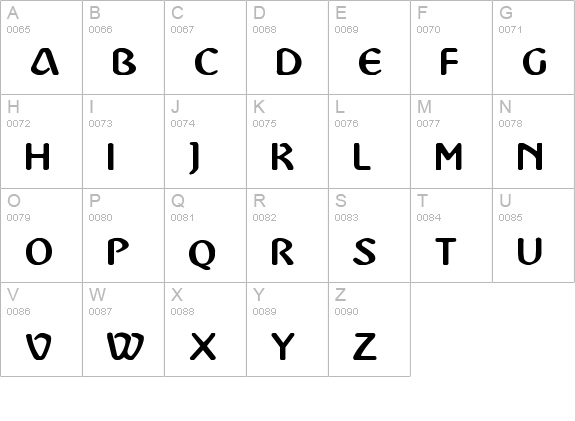
Abbey-Medium Wd is a balanced, medium-weight variant in the Abbey typeface family \xE2\x80\x94 well suited to sub-headlines, navigation, and balanced editorial work.
Abbey-Medium Wd font is a stylish and versatile typeface that exudes elegance and sophistication. With its medium weight and distinctive letterforms, this font is perfect for a wide range of design projects, from branding to editorial design. The clean lines and balanced proportions of Abbey-Medium Wd make it a timeless choice for both print and digital applications. The best part? Abbey-Medium Wd font is available for free download at FontsMarket.com. Whether you're a designer looking to add a touch of class to your projects or a business owner in need of a polished font for your branding materials, Abbey-Medium Wd is sure to impress. Don't miss out on this opportunity to enhance your designs with this beautiful and freely available font.